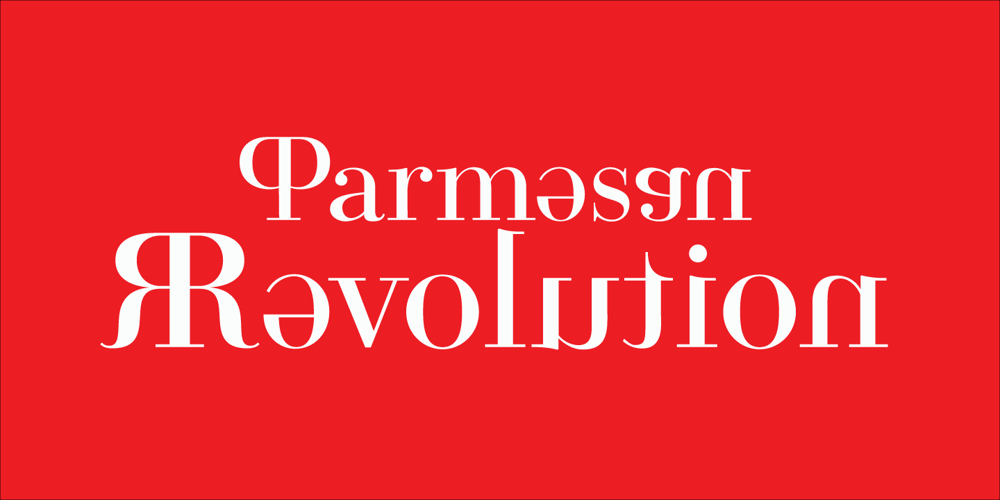
Parmesan Revolution
Parmesan Revolution font
Parmesan Revolution Font Family was designed by Antonio Vignali and published by RM&WD. Parmesan Revolution contains 6 styles and family package options. This font take inspiration by the Parmesan ( Parmesan means “born in the city of Parma” like Me, and not the chees of course) famous typographer Giambattista Bodoni from 1700s. Is a font designed to perform better when used in high dimension like Headline in Ad, Titles in Magazines or Blogs, Logos, Naming, Packaging… Is easy to have great result using contextual & stilistic alternatives, ligatures and other SS alternatives, as show in the posters. Is highly raccomended graphic applications with OpenType tab, such Adobe Illustrator or Photoshop or Quark Xpress InDesign, for the use of OpenType Features.